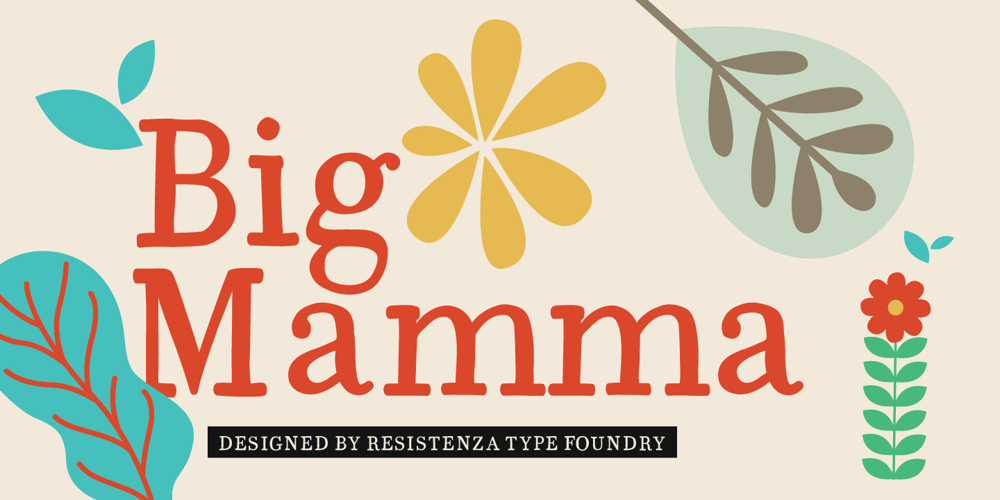
Big Mamma Font Family was designed by Giuseppe Salerno, Paco González and published by Resistenza. Big Mamma contains 2 styles and family package options. Big Mamma: where hand-craftsmanship meets professional design, delivering a font that infuses every project with a DIY effect and a handmade touch. With its slab serif style, Big Mamma brings a fresh and artisanal look to any design layout, making it perfect for those seeking to add a dash of authenticity to their creations.Meticulously handcrafted, Big Mamma exudes the essence of authenticity, warmth, and the human touch. Making it tailor-made for projects that celebrate the organic, the handmade, and the local. Big Mamma is designed to put people at the center, resonating with audiences who appreciate the beauty of imperfection and the charm of handcrafted goods.This versatile font works wonders across a multitude of purposes, whether it’s adding a playful touch to kids’ materials, lending a natural vibe to bio-related content, or enhancing the appeal of food packaging with its artisanal flair. Compatible with OpenType font format, it seamlessly integrates into a wide array of design software, ensuring a smooth and hassle-free creative process. Moreover, its multilingual support for Basic Latin, Western European, Euro, and Pan African Latin ensures that your message resonates across cultures and borders.So whether you’re designing for a local market or reaching a global audience, let Big Mamma be your go-to font for infusing your projects with the warmth, authenticity, and handmade allure that only hand-drawn craftsmanship can provide.More About Opentype Features: https://bit.ly/opentype-rsz